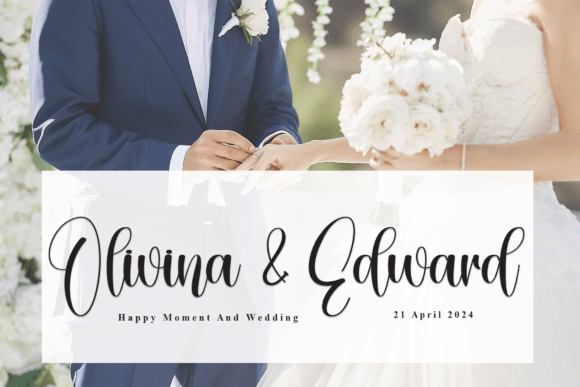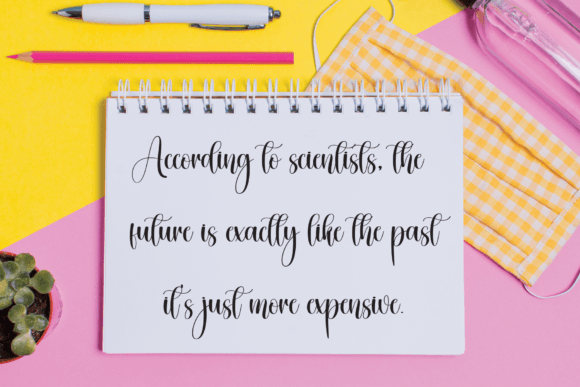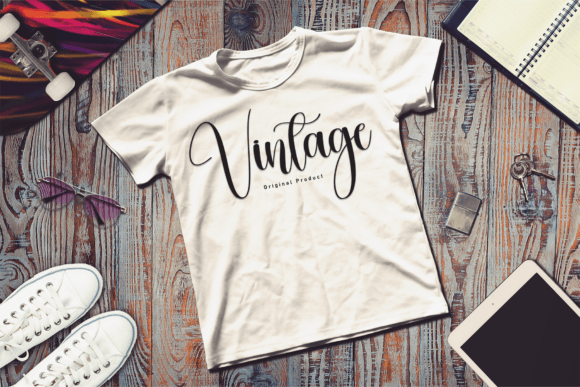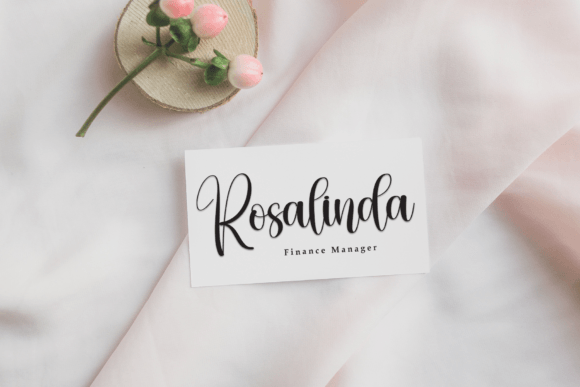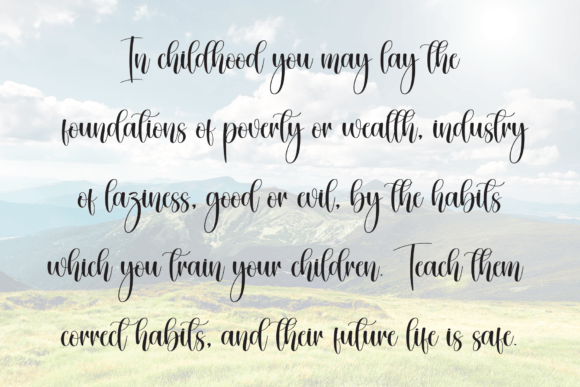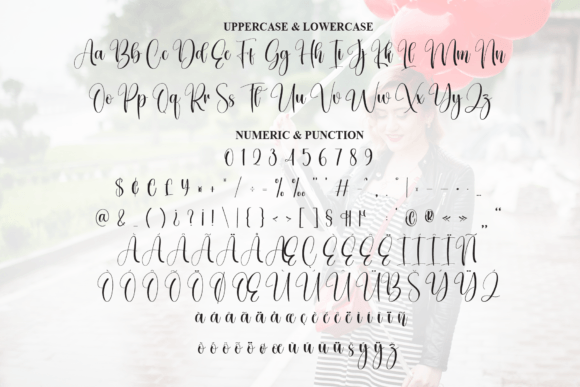
Bachelorette Font: The Perfect Handwritten Touch for Your Designs
The Bachelorette font has gained popularity among designers and crafters for its charming and elegant appearance. This beautiful handwritten font is perfect for adding a personal touch to various designs, including wedding invitations, thank you cards, quotes, greeting cards, logos, business cards, and more.
What Makes Bachelorette Font So Special?
Bachelorette font feels equally charming and elegant, making it an excellent choice for designers and crafters looking for a font that exudes sophistication and warmth. Its handwritten style gives it a unique and personal feel, making it perfect for designs that require a touch of elegance.
One of the most popular uses of the Bachelorette font is in wedding and event designs. It looks stunning on wedding invitations, save-the-date cards, and thank you cards, making it an excellent choice for couples looking for a font that will add a touch of romance and elegance to their special day. The font’s elegant and cursive style makes it perfect for formal and informal events, including baby showers, bridal showers, and more.
Adding a Personal Touch to Your Designs
The Bachelorette font is not just limited to wedding and event designs. It’s also perfect for adding a personal touch to various other designs, including quotes, greeting cards, logos, and business cards. The font’s handwritten style gives it a unique and personal feel, making it perfect for designers and crafters looking to add a touch of warmth and elegance to their designs.
Why Designers and Crafters Love Bachelorette Font
Designers and crafters love the Bachelorette font for its versatility and elegance. The font is easy to read and works well in various design applications, including digital and print designs. Its elegant and cursive style makes it perfect for designs that require a touch of sophistication and warmth.
Tips for Using Bachelorette Font in Your Designs
Here are some tips for using the Bachelorette font in your designs:
- Use it for wedding and event designs, including invitations, save-the-date cards, and thank you cards.
- Add it to your designs that require a personal touch, including quotes, greeting cards, and logos.
- Pair it with other fonts to create a unique and stylish design.
The Bachelorette font is a beautiful and elegant handwritten font that’s perfect for designers and crafters looking to add a touch of sophistication and warmth to their designs. Its versatility and elegance make it perfect for various design applications, including wedding and event designs, quotes, greeting cards, logos, and business cards. With its easy-to-read style and unique handwritten touch, the Bachelorette font is sure to become a favorite among designers and crafters.